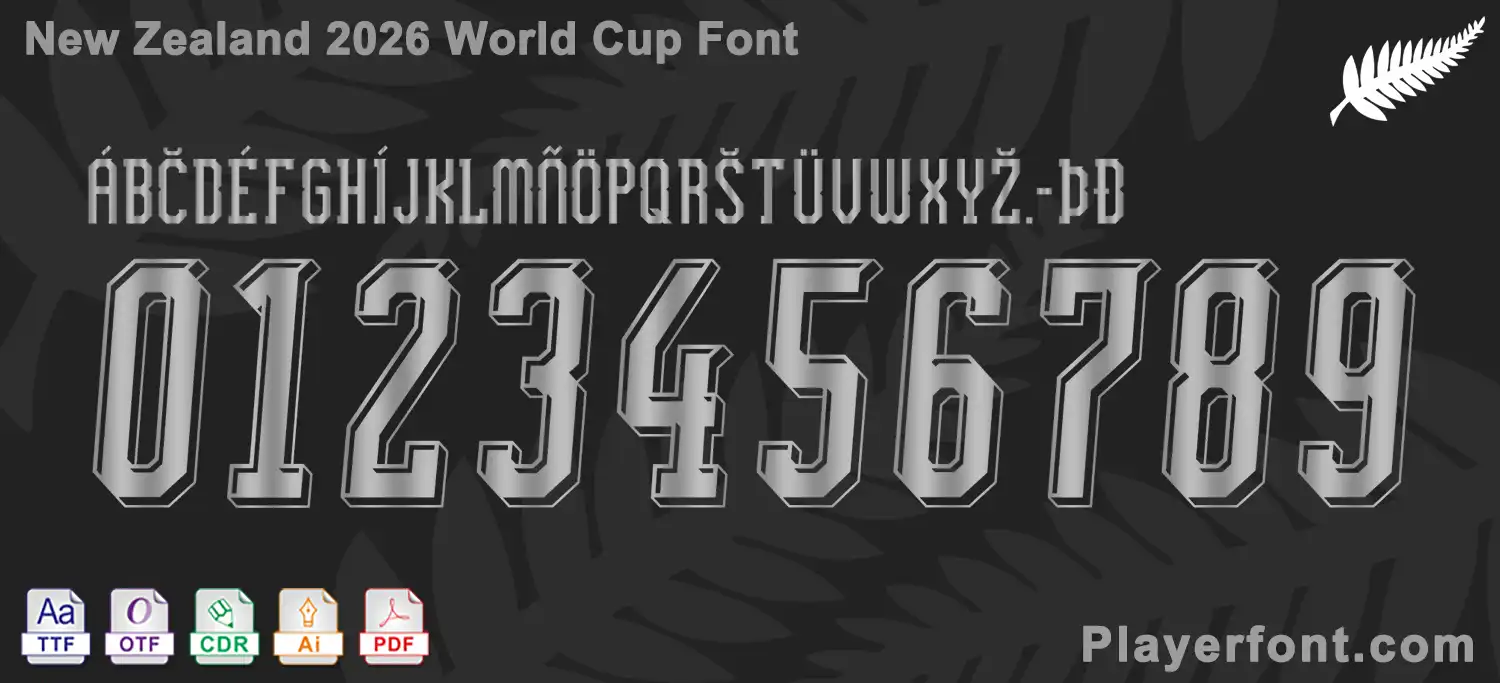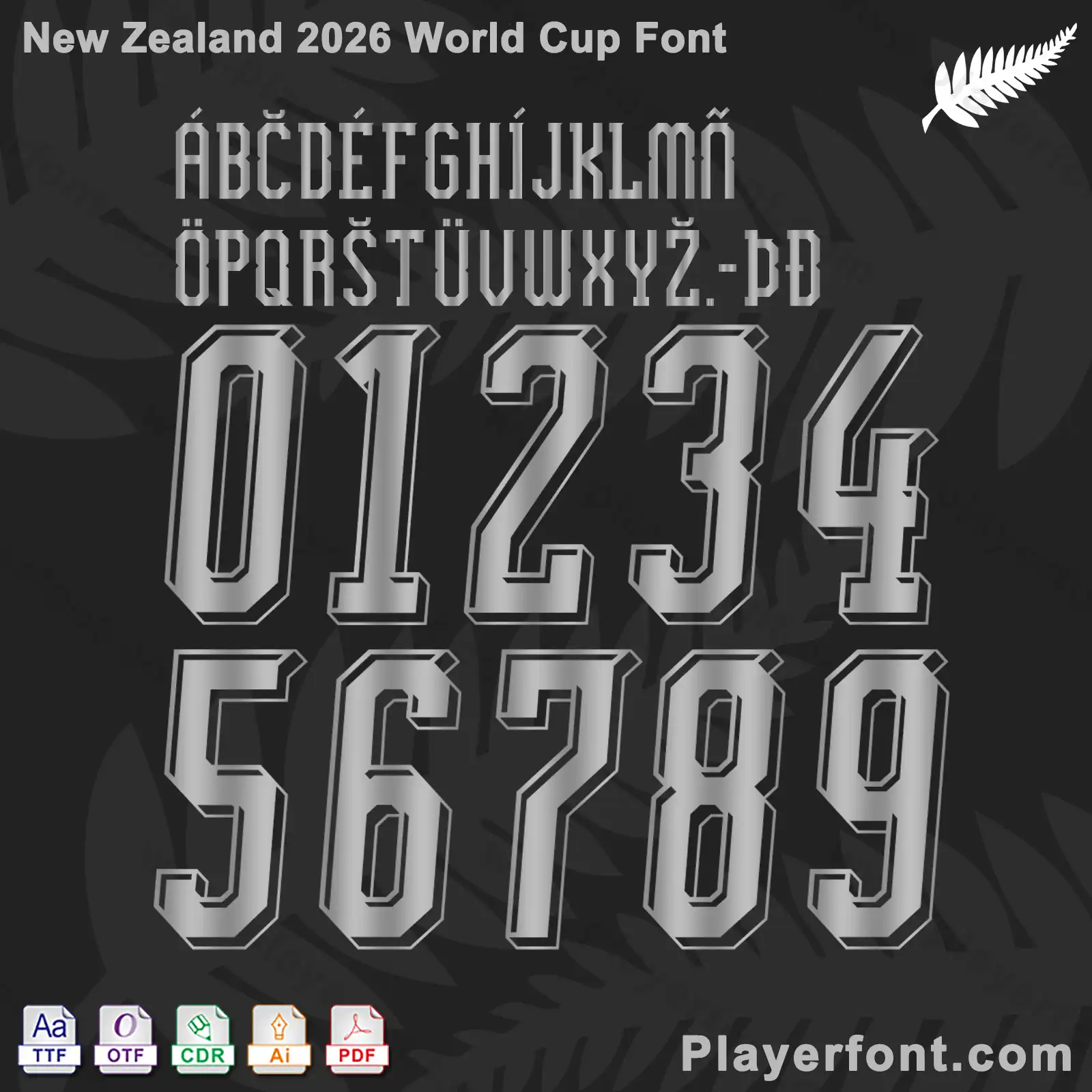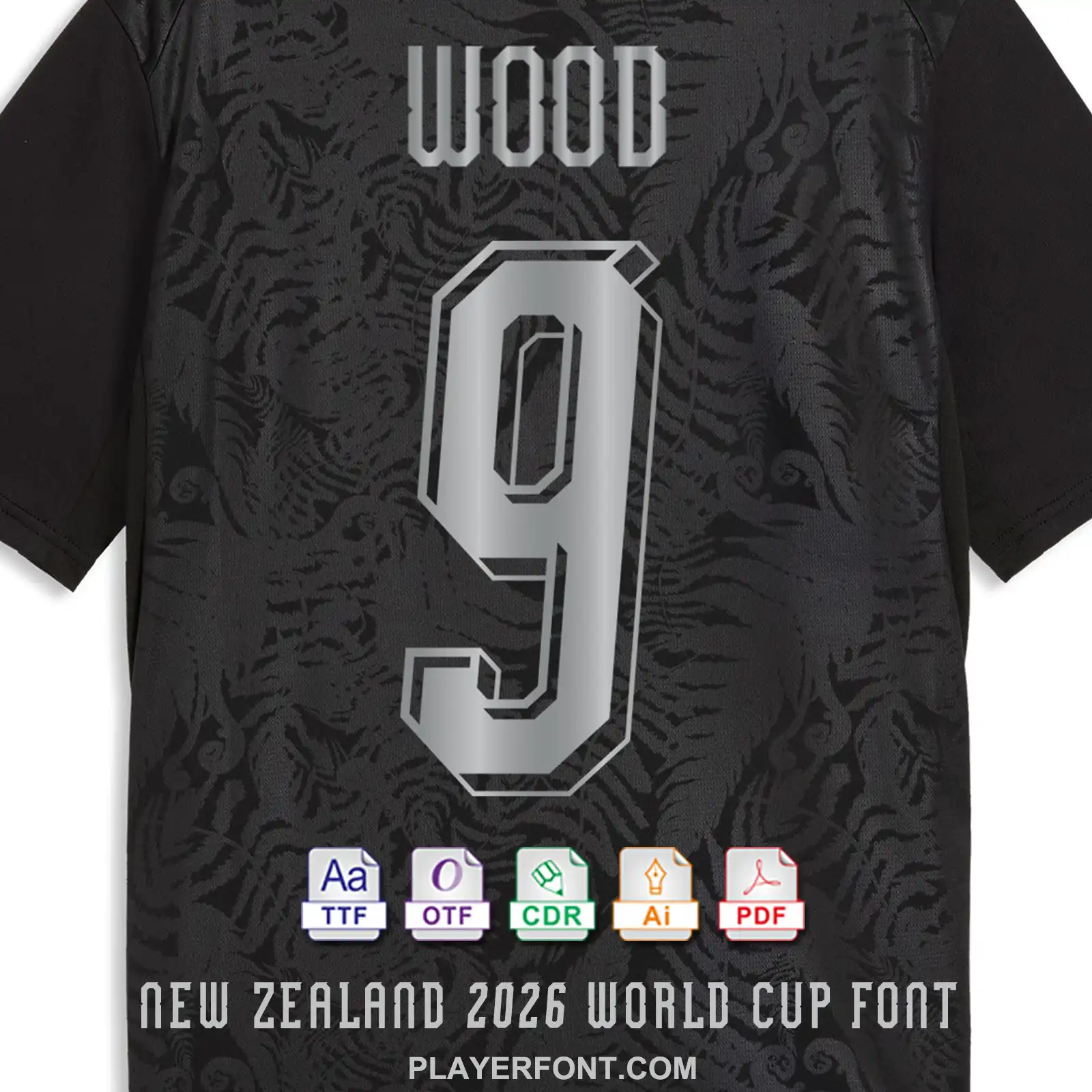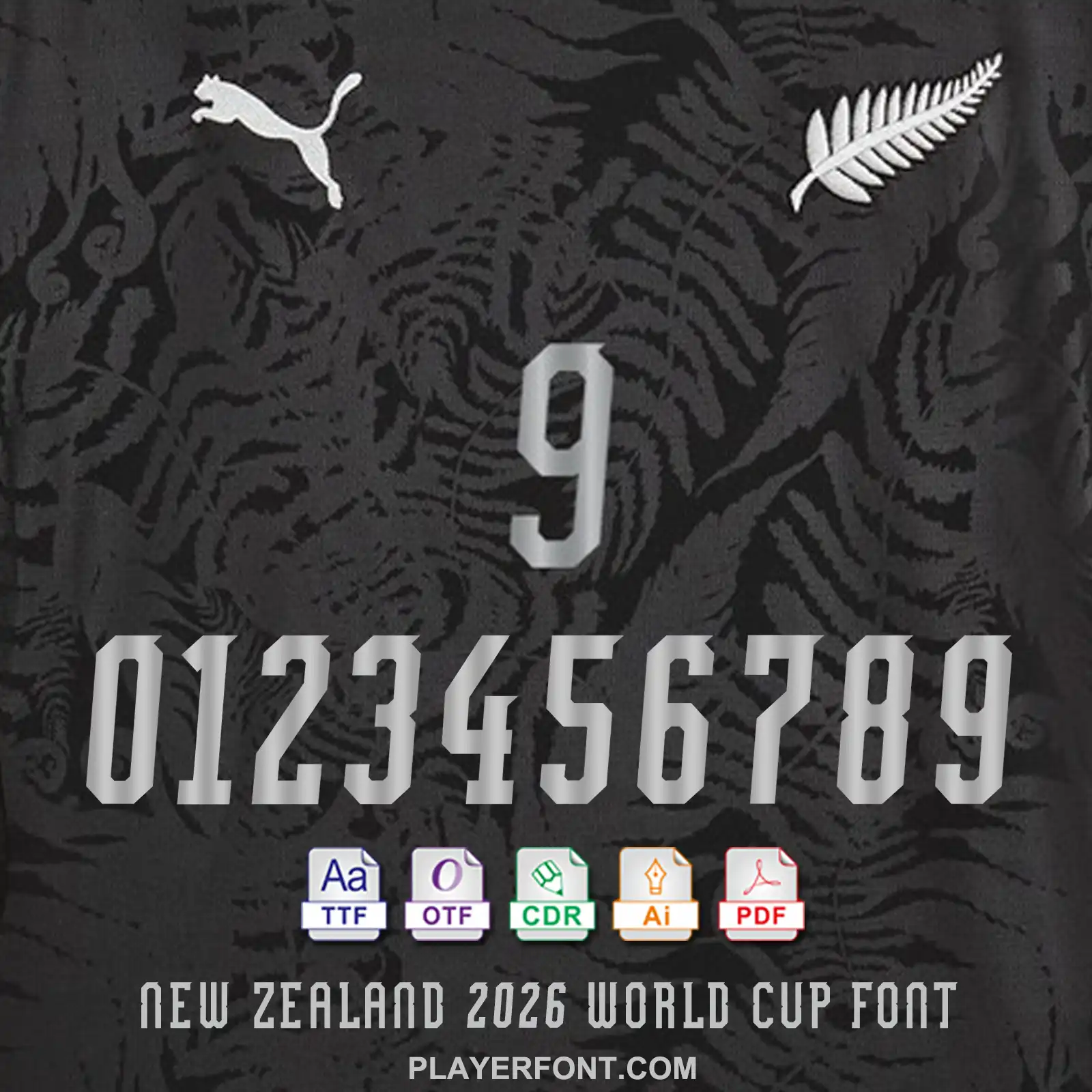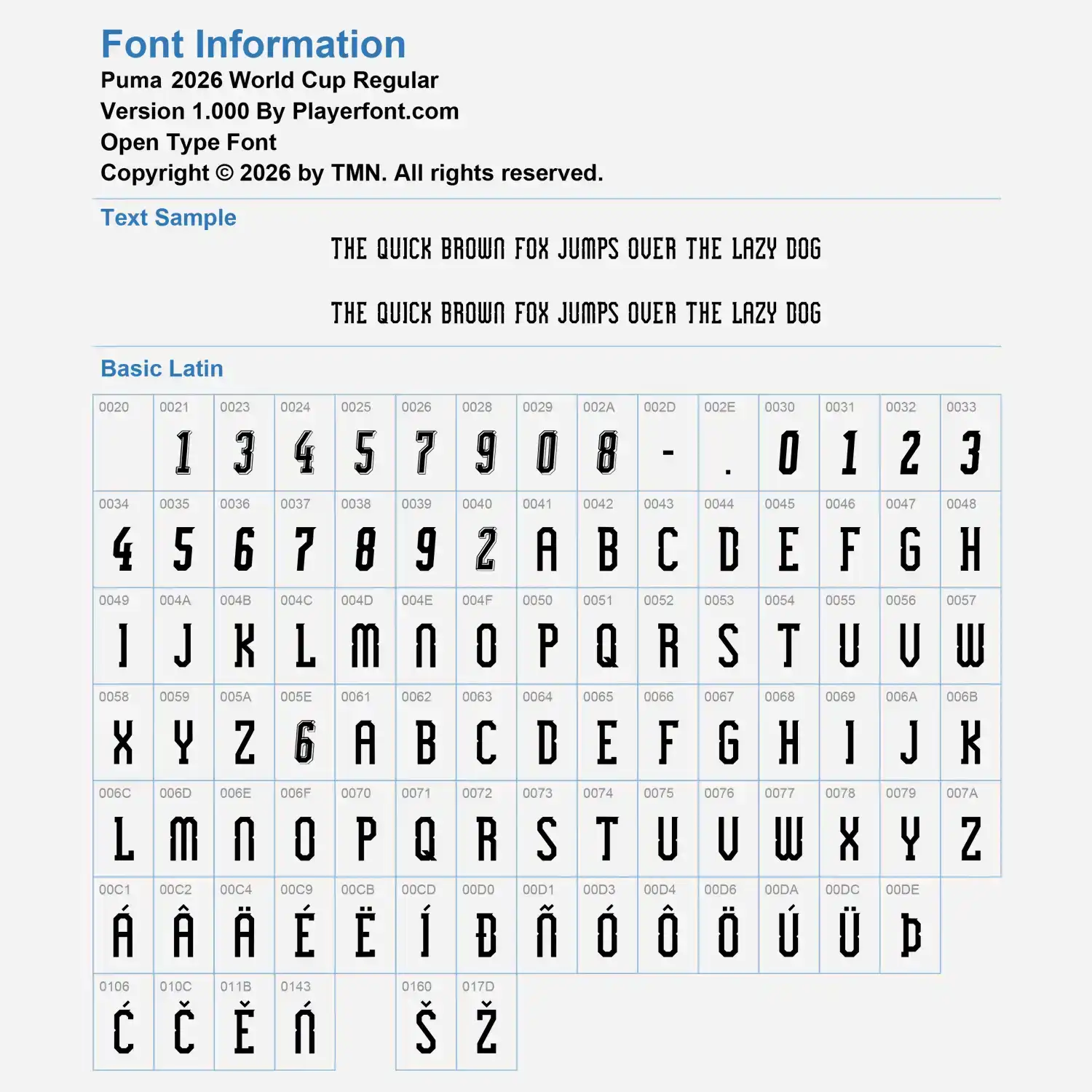
Elevate your sports design projects with the New Zealand 2026 World Cup Font Kit. Inspired by the latest national team aesthetic, this font captures the bold, modern identity of the All Whites as they head into the 2026 tournament.
Full Character Set: Includes all uppercase letters, special characters (Á, Č, É, etc.), and the distinctive 2026 numbering style.
Authentic Design: High-fidelity recreation of the Puma 2026 World Cup style.